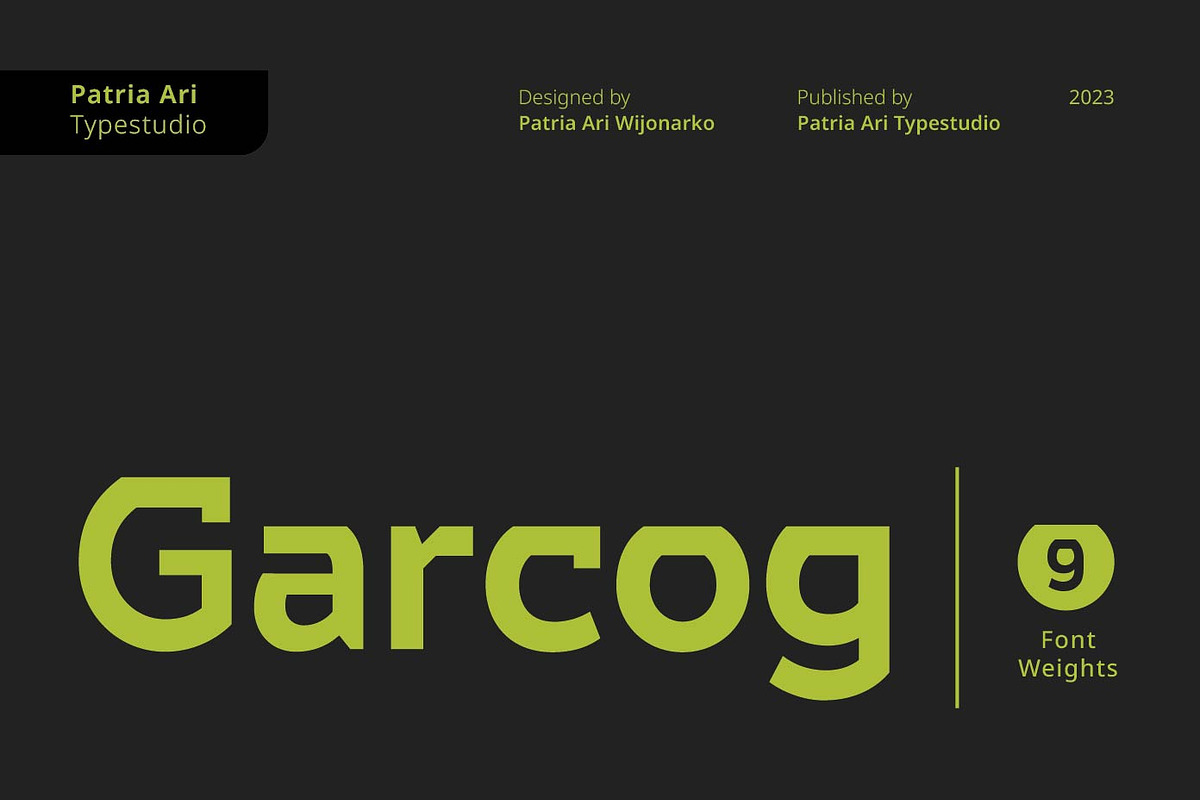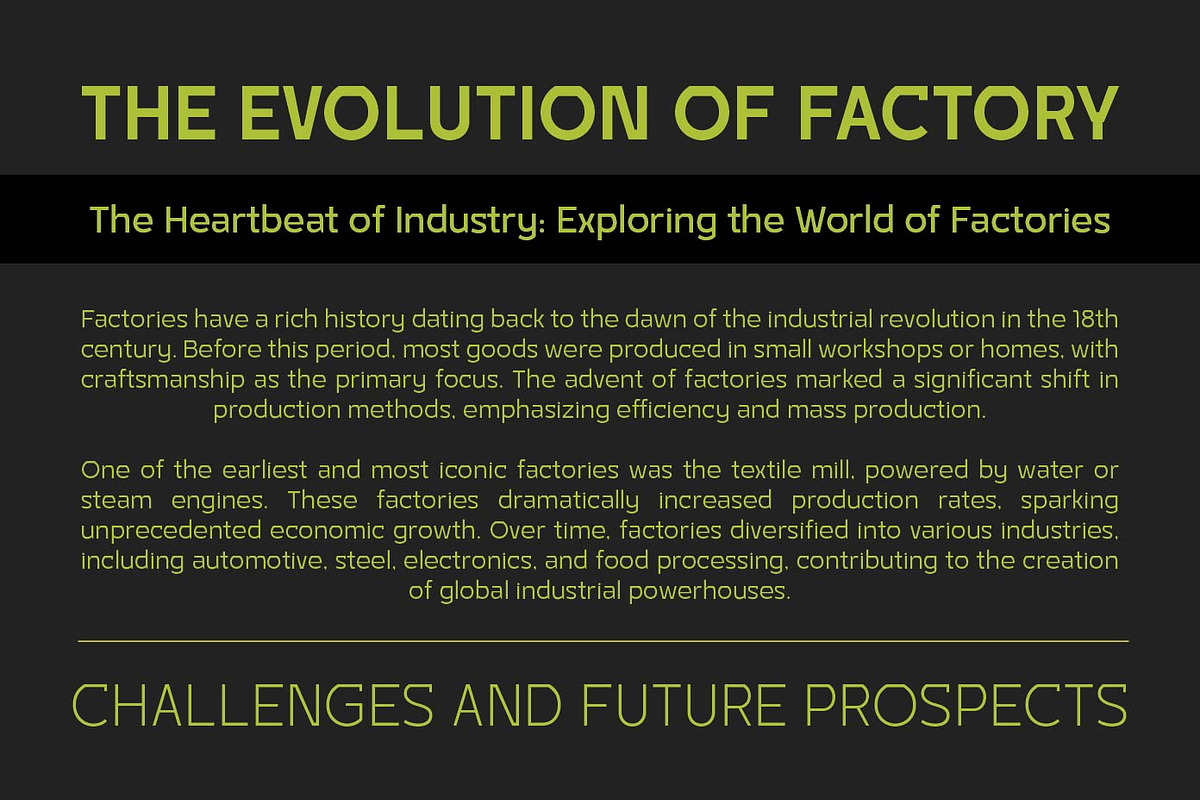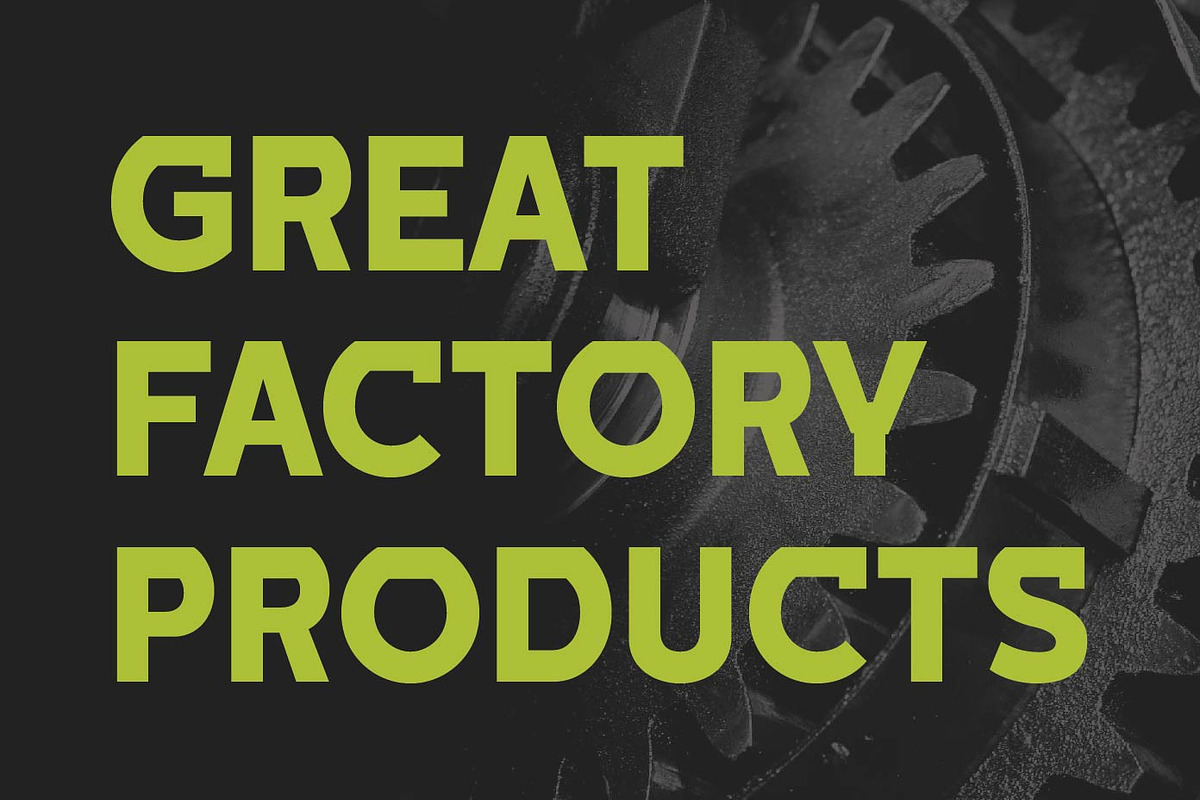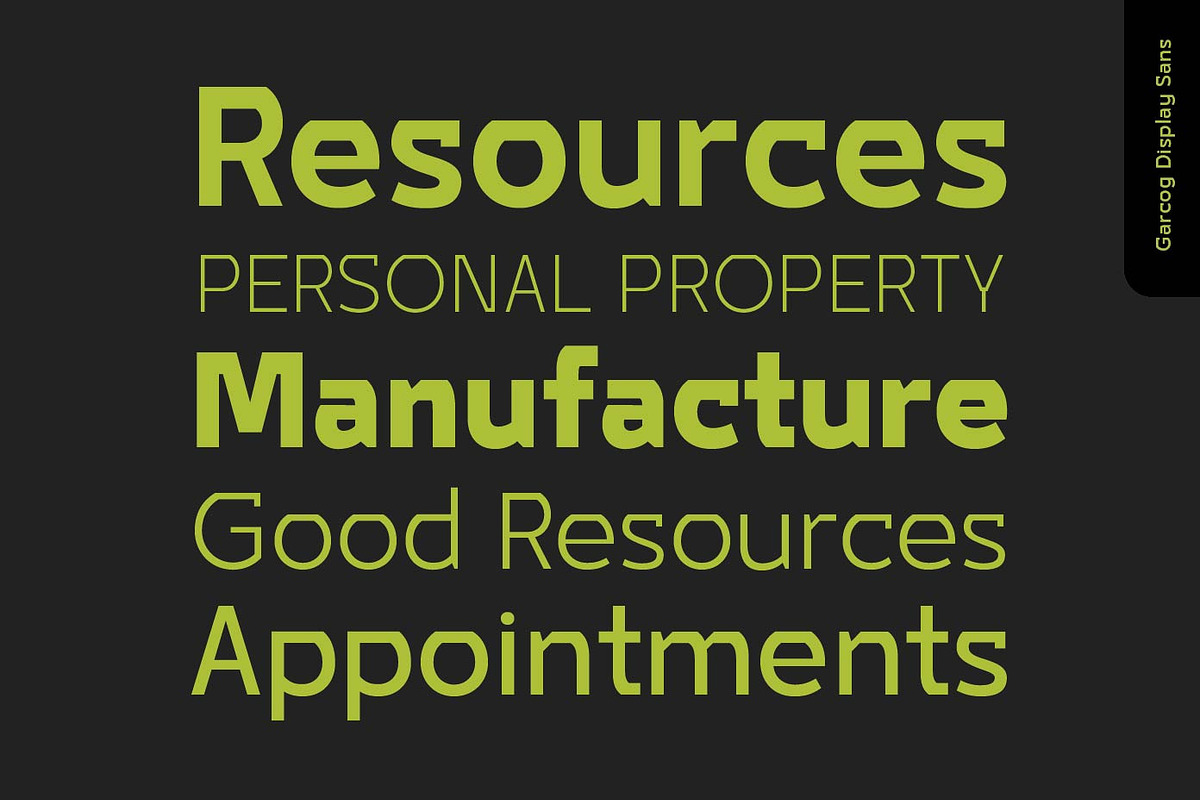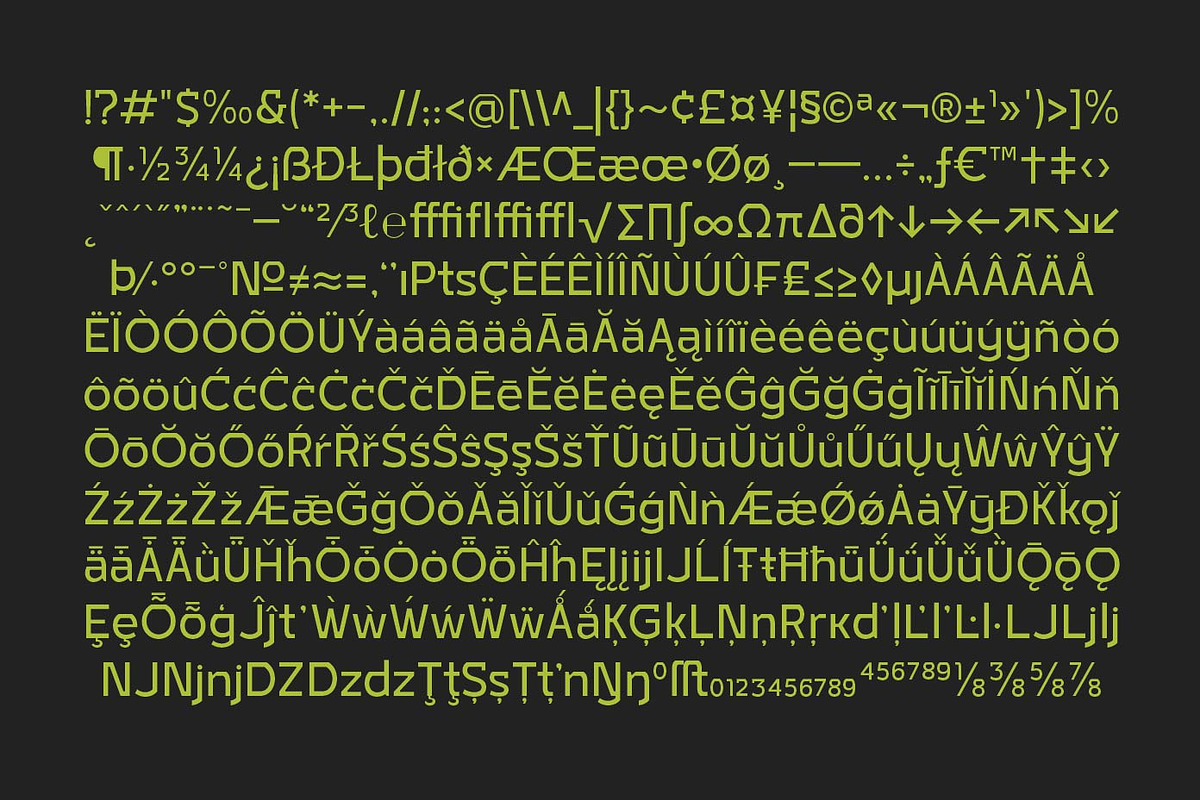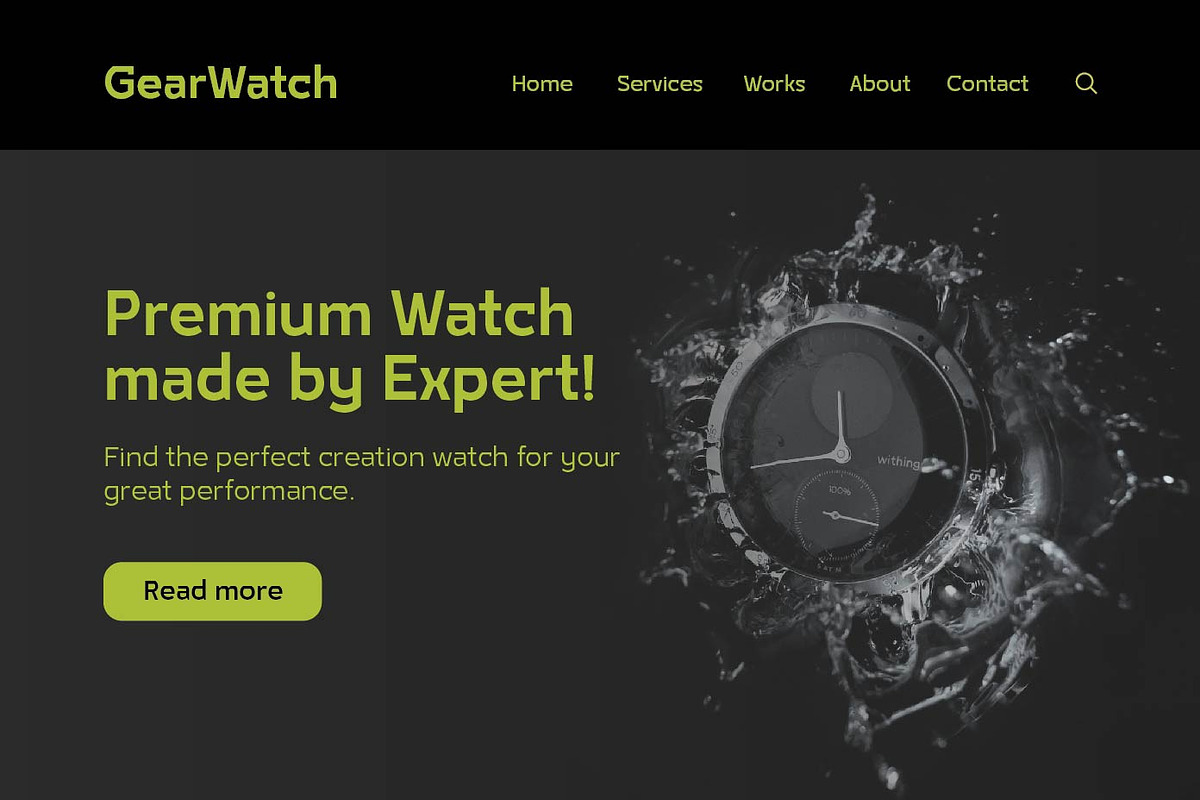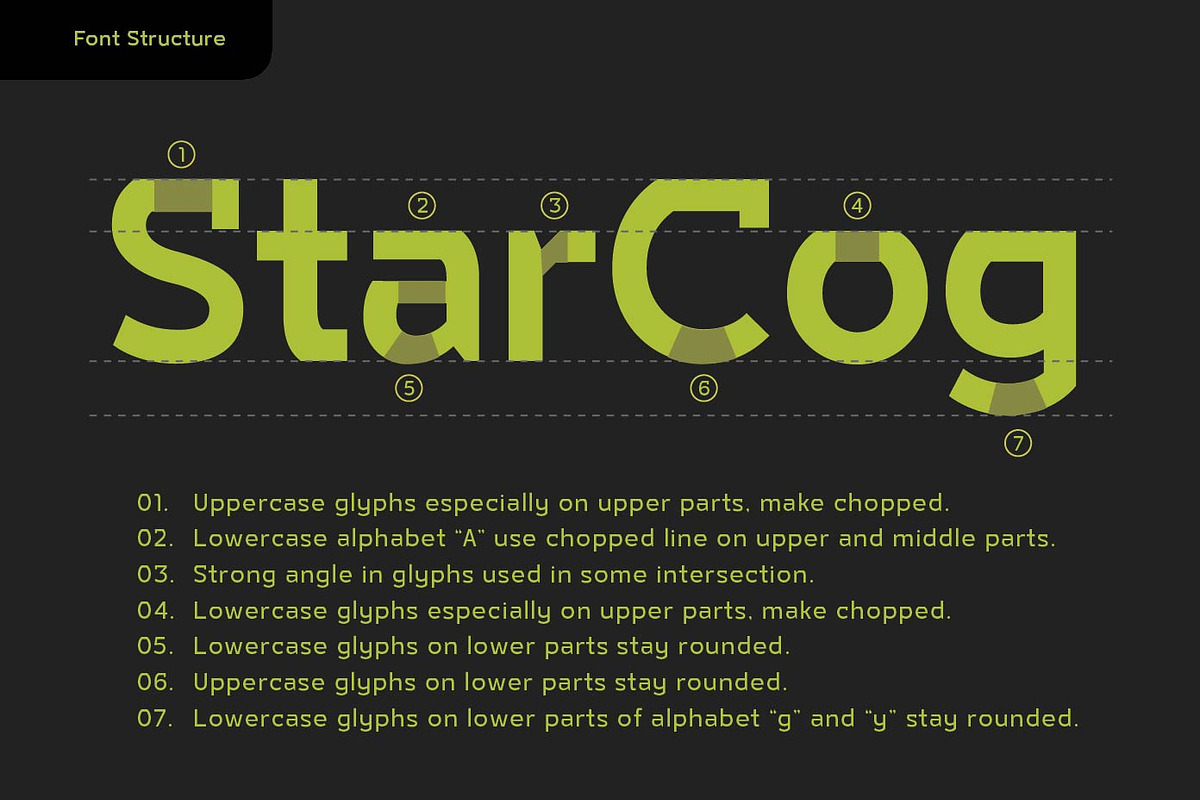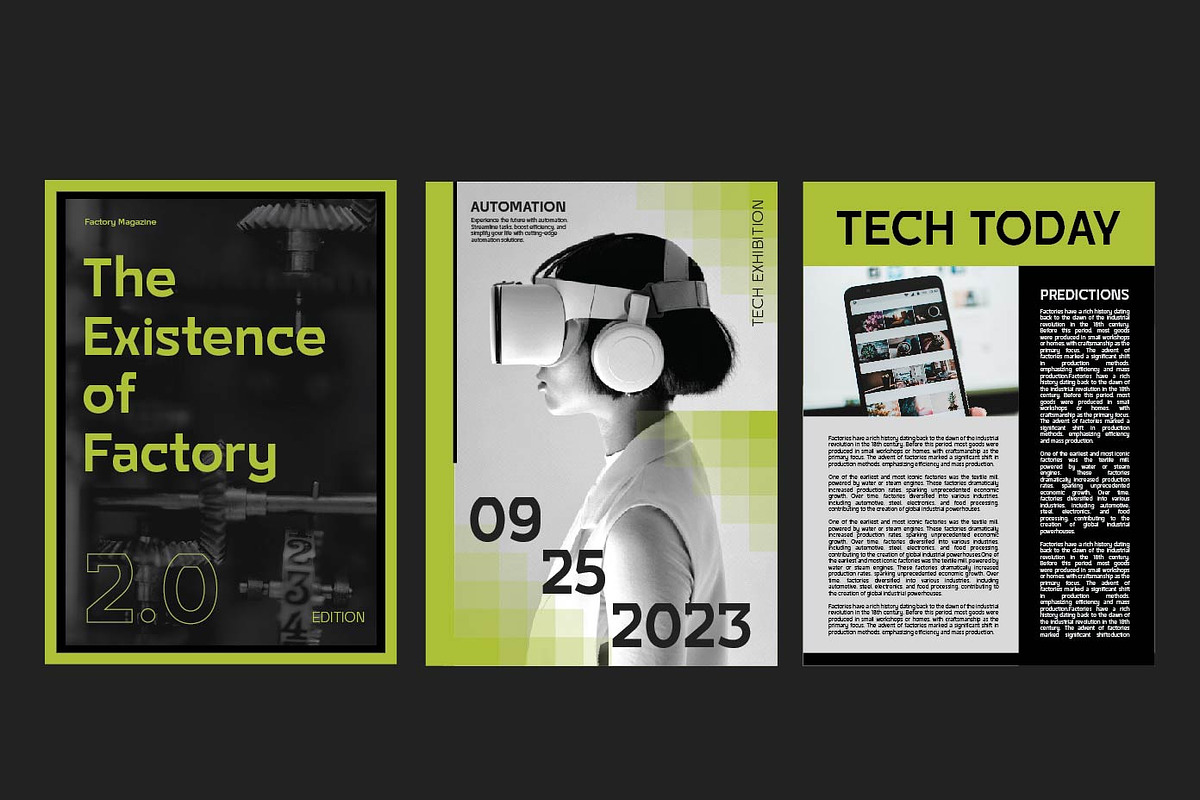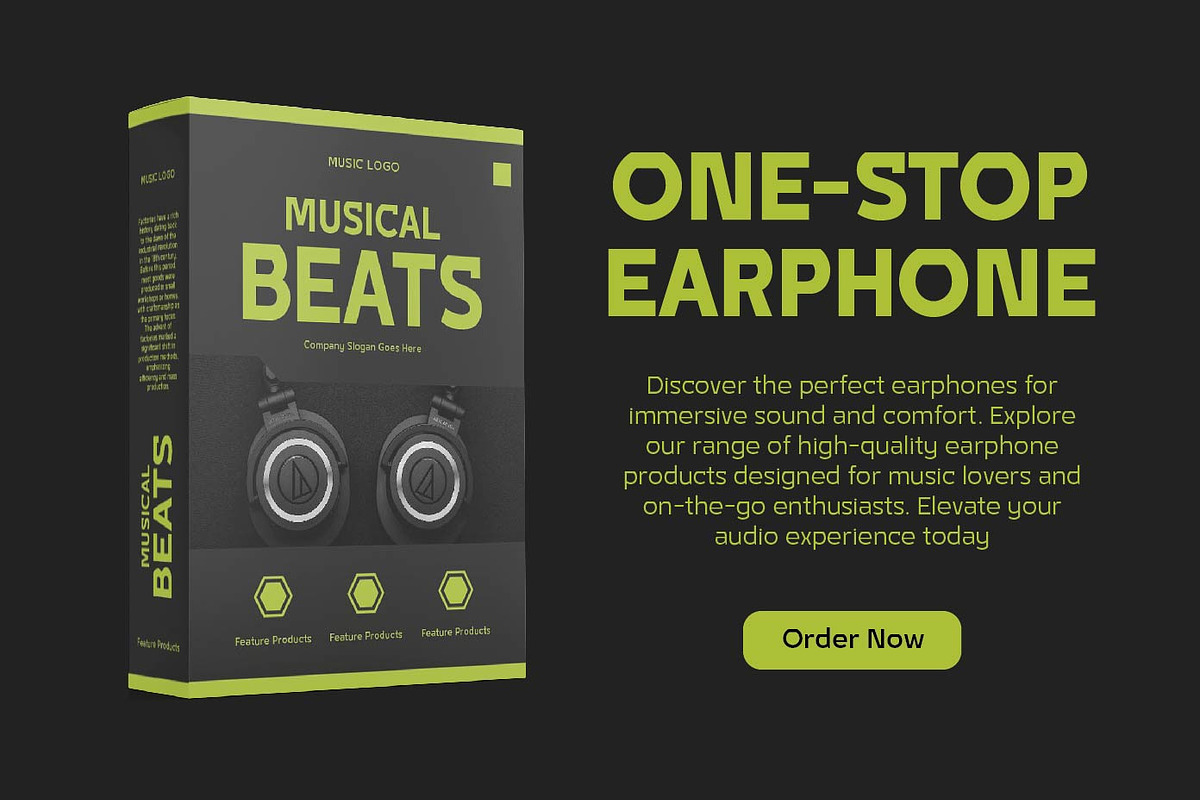
Garcog Modern Sans Font
Garcog : The Ultimate Typeface for Mechanical Aesthetics. Inspired by the intricate design of gears and cogs, Garcog features upper shapes cut like precision engineering. This unique font adds a touch of industrial sophistication to your projects, making it the perfect choice for conveying precision, innovation, and mechanical excellence. Ideal for engineering, manufacturing, and tech-related designs, Garcog is the font that propels your message into a new dimension of creativity.